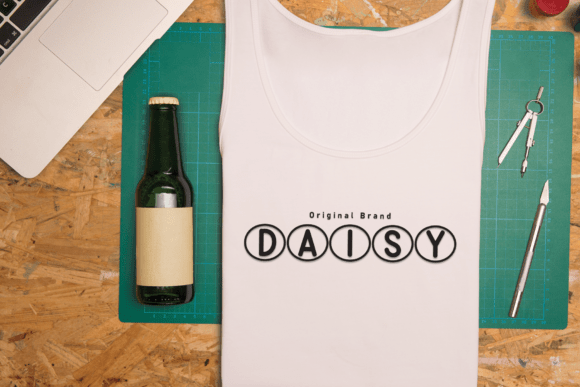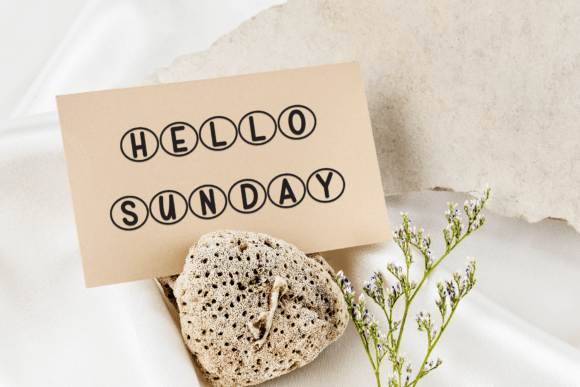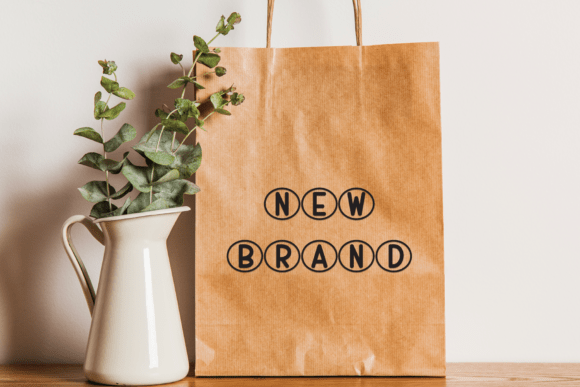
Introduction to Happy Circle Font
As a designer, there’s nothing quite like the thrill of discovering a new font that sparks creativity and sets your imagination ablaze. For those moments of pure design joy, we’re excited to introduce the Happy Circle Font – a charmingly hand-designed display font that’s sure to add a playful dash of originality to your next creative project.
Imagine being able to inject a little extra magic into your wedding invitations, greeting cards, or social media graphics with a font that embodies innocence and vibrancy. The Happy Circle Font is the perfect resource for designers seeking a high-quality, unique font that’s both free to download and customizable to suit any design need.
Key Features of Happy Circle Font
- Includes 20 unique characters, including various circle shapes and designs
Honest Review: Happy Circle Font
I recently stumbled upon the Happy Circle Font and was excited to give it a try in my creative project. As a designer, I’m always on the lookout for high-quality design resources that can elevate my work. The Happy Circle Font definitely delivers on this front.
- What works well: ✨ The font’s playful and cheerful vibe is perfect for projects that require a lighthearted touch. I also appreciate the fact that it’s available for free download, making it an accessible resource for designers on a budget.
- What works well: ✨ The font’s transparent background makes it easy to customize and integrate into different designs.
However, there are some limitations to consider. ⚠️ The font’s limited character set may make it less suitable for longer texts or complex designs. Additionally, the font’s design may not be suitable for more formal or professional projects.
Overall, I’m impressed with the Happy Circle Font and think it’s a great addition to any designer’s toolkit. While it may have some limitations, its unique style and free availability make it a valuable resource for creative projects.
The Happy Circle Font is perfect for various design projects, including social media graphics, flyers, posters, and more. It’s also great for creating custom logos, branding materials, and packaging designs.
To get the most out of the Happy Circle Font, experiment with different font sizes, colors, and combinations. You can also pair it with other design elements, such as shapes, icons, and images, to create unique and eye-catching designs.